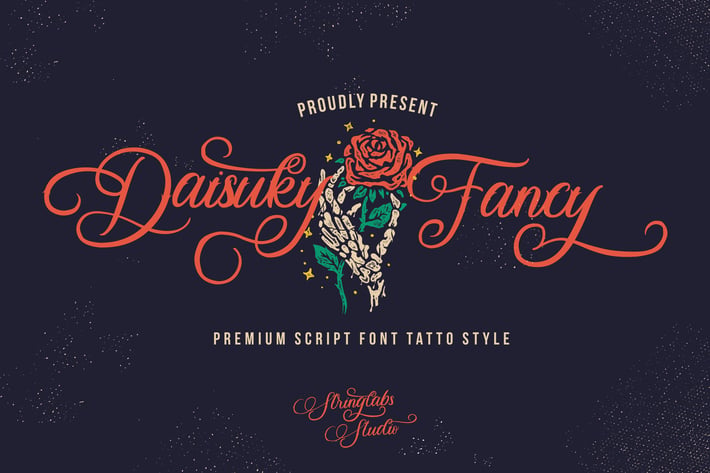
Daisuky Fancy - Tatto Script Font
Introducing Daisuky Fancy - Tatto Script Font
Daisuky Fancy is a flowing and elegant handwritten font, this font has tatto style with vintage theme. Get inspired by its unique and beautiful style and add it to your favorite designs!